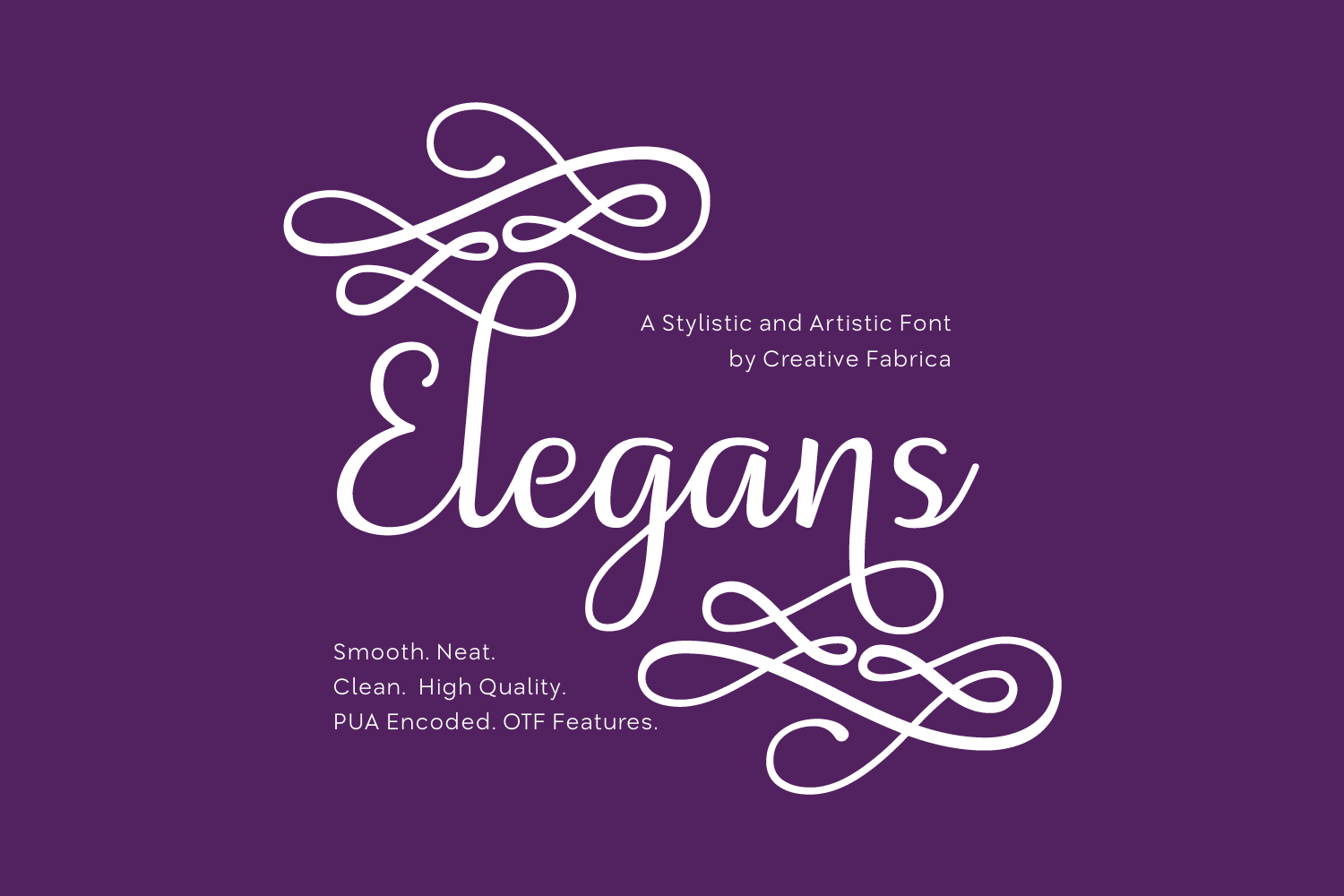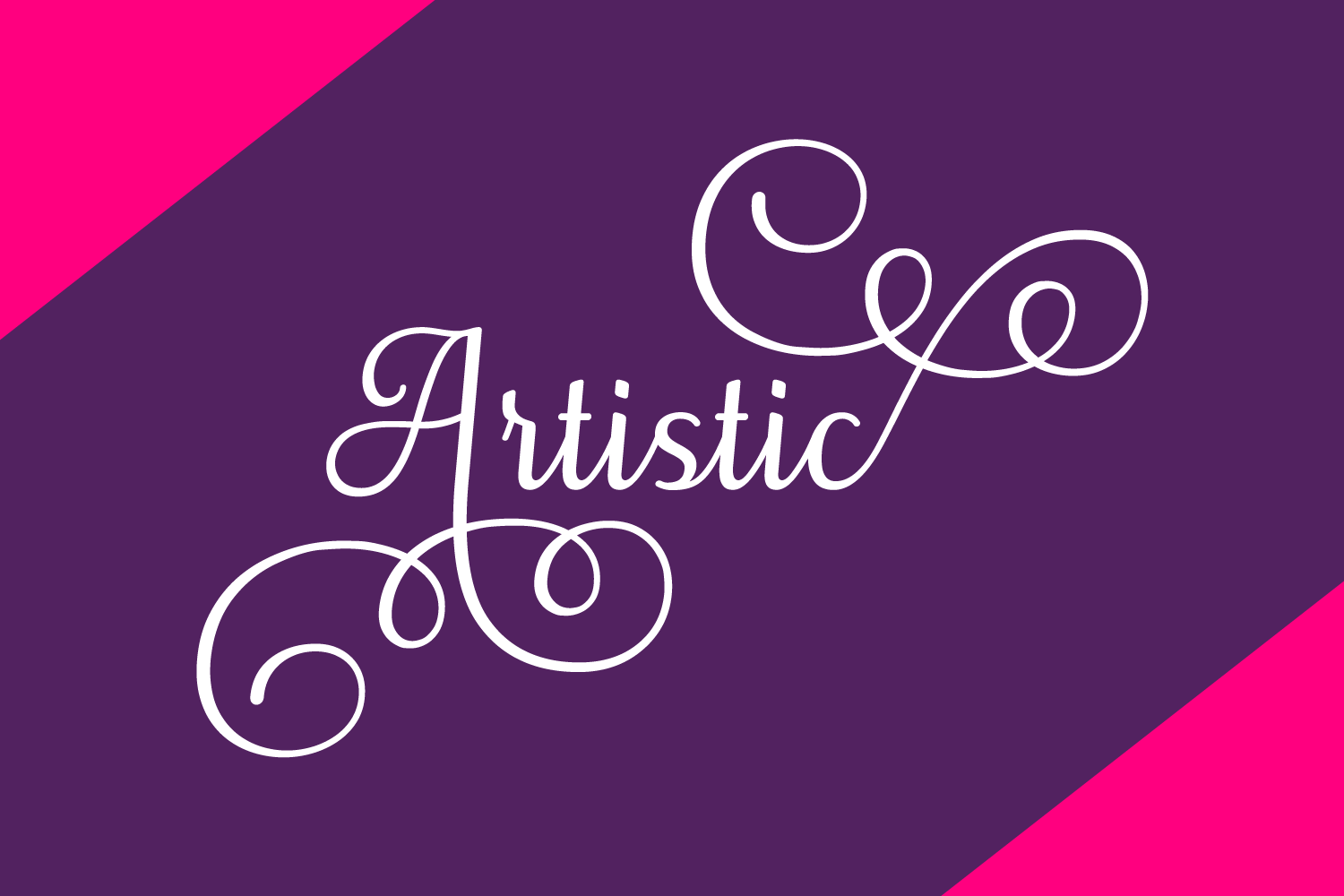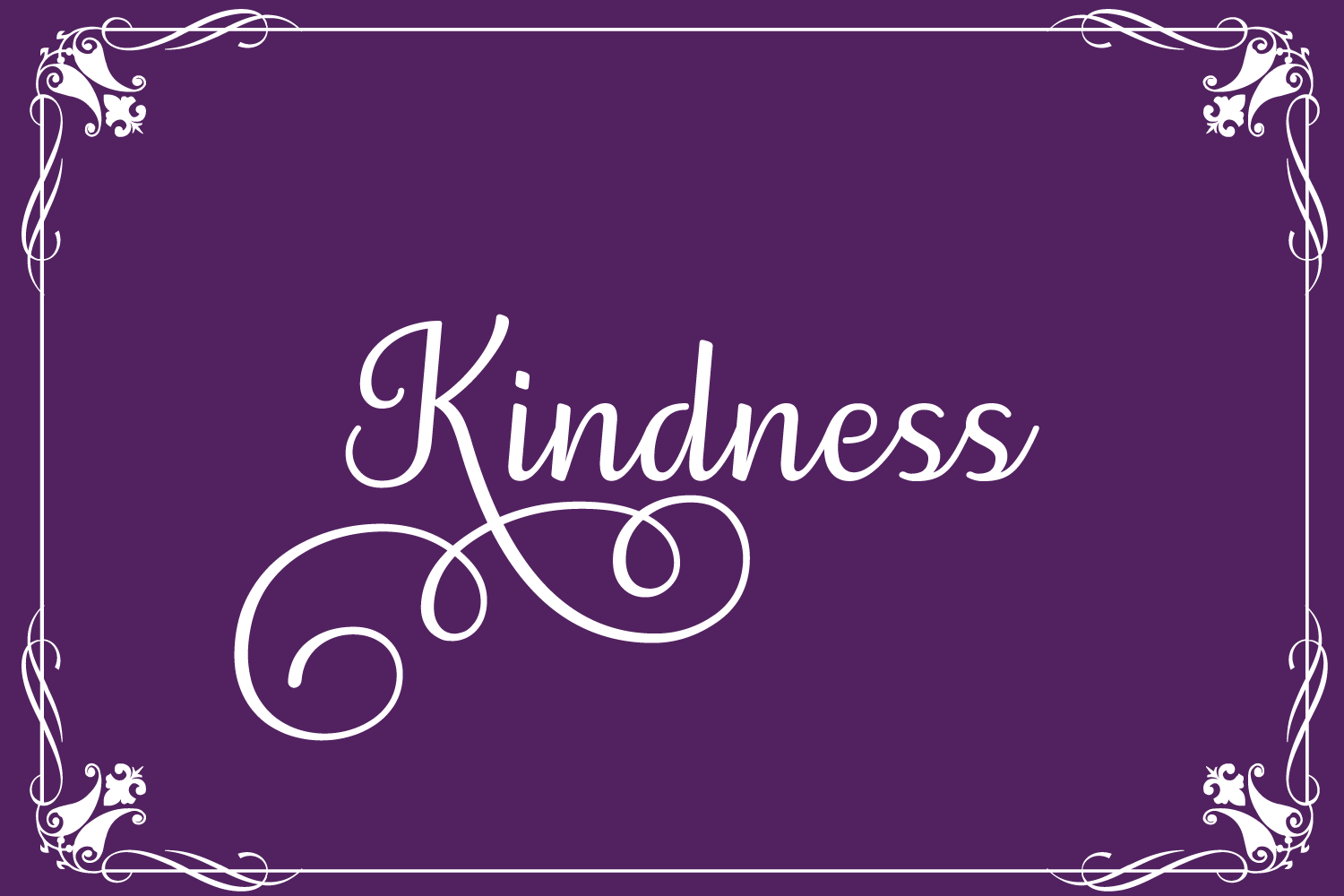
About Elegans Font
Elegans, a smooth script created by Creative Fabrica.
Elegans is a handwritten slant. It allows you to add a very elegant, personal touch to your projects. The slightly tilted letters are connected and come in multiple variations, with and without swashes. The font is tailored to match a huge range of designs.
Each letter is optimized for readability, which makes it a very pleasant font to work with for branding & marketing projects, but also for craft projects, invites, thank you cards, signs and more.